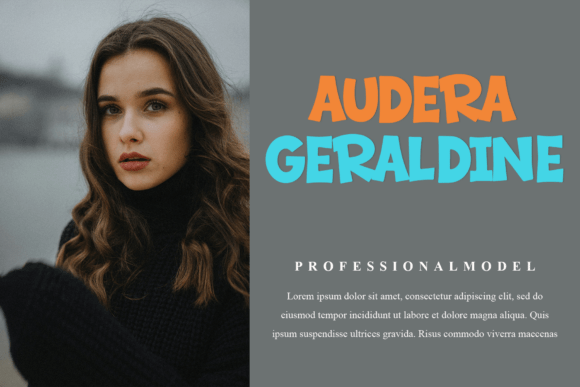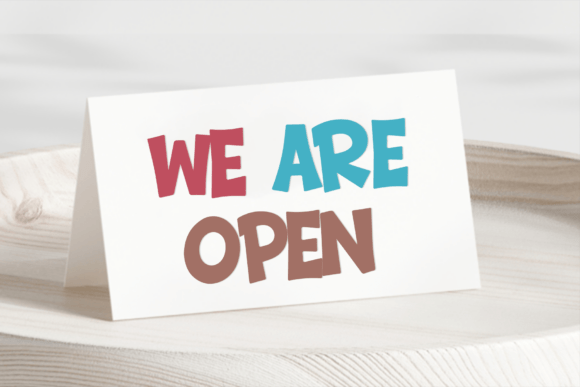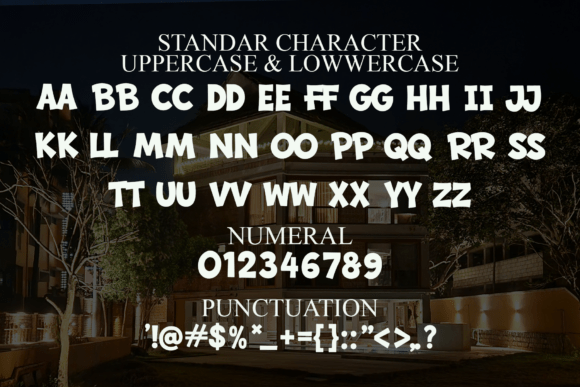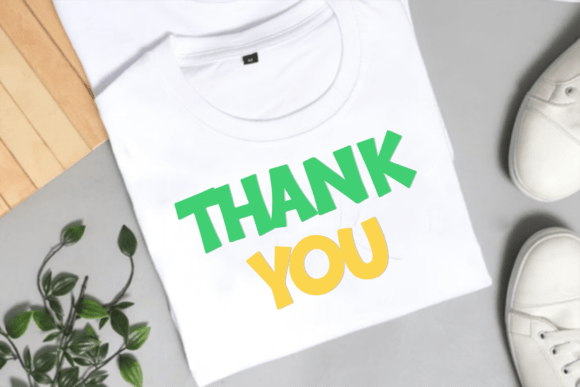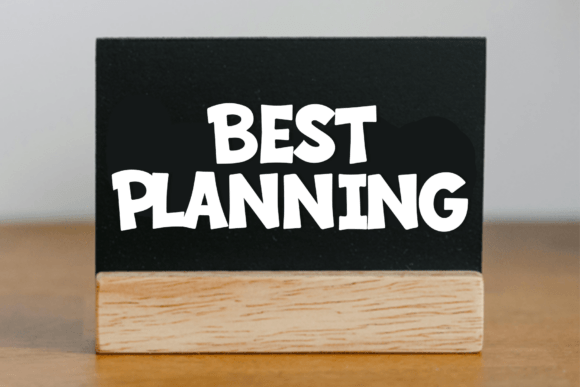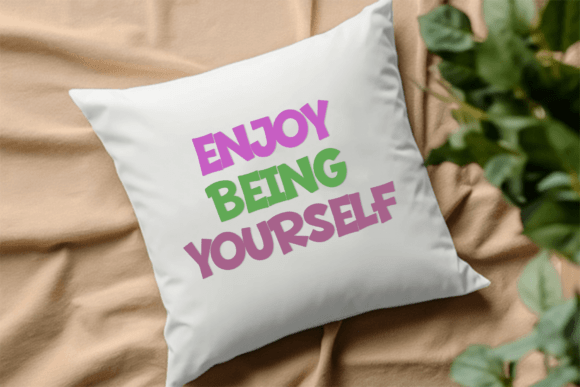
Introduction to Boys Team Font
Boys Team is a festive and merry typeface that captures the spirit of the holiday season.
Key Features of Boys Team Font
Why Choose Boys Team Font?